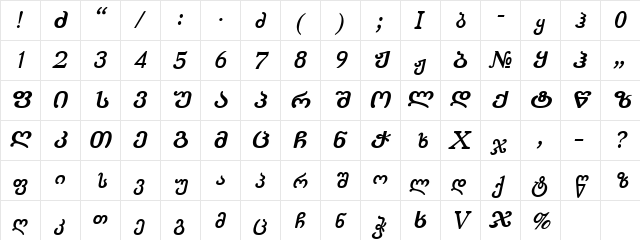
Literaturuly-ITV Bold Italic Font Preview
Literaturuly-ITV Bold Italic
Literaturuly-ITV Bold Italic Font Details
Design Context for Literaturuly-ITV Typeface
Literaturuly-ITV offers clean, dependable letterforms without strong stylistic allegiance, making it a practical choice for designers who need flexibility. Its italic angle brings a sense of urgency and motion to the letterforms. Its bold stroke weight gives it real presence on the page.